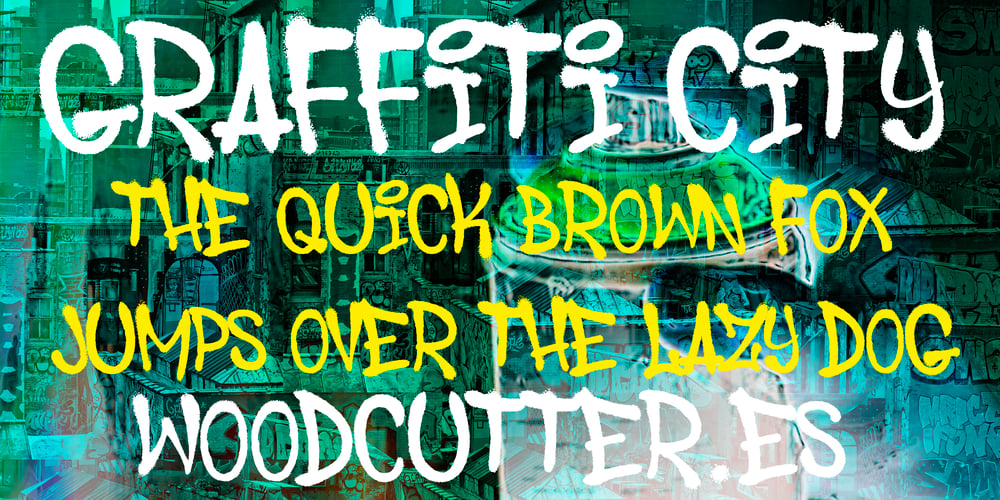
Graffiti City Font Family was designed by Jordi Manero and published by Woodcutter. Graffiti City contains 1 styles and family package options. “Inspired by street graffiti and spray-painted tags, ‘Graffiti City’ font captures the urban edge and vibrant energy of city streets. Each letter is infused with the spontaneity and boldness of street art, featuring rugged strokes and expressive lines. Perfect for projects seeking to evoke the gritty charm of urban landscapes, from edgy posters to urban-themed designs. ‘Graffiti City’ brings the raw, unfiltered spirit of the streets to your fingertips, allowing you to create designs that stand out and make a statement.”